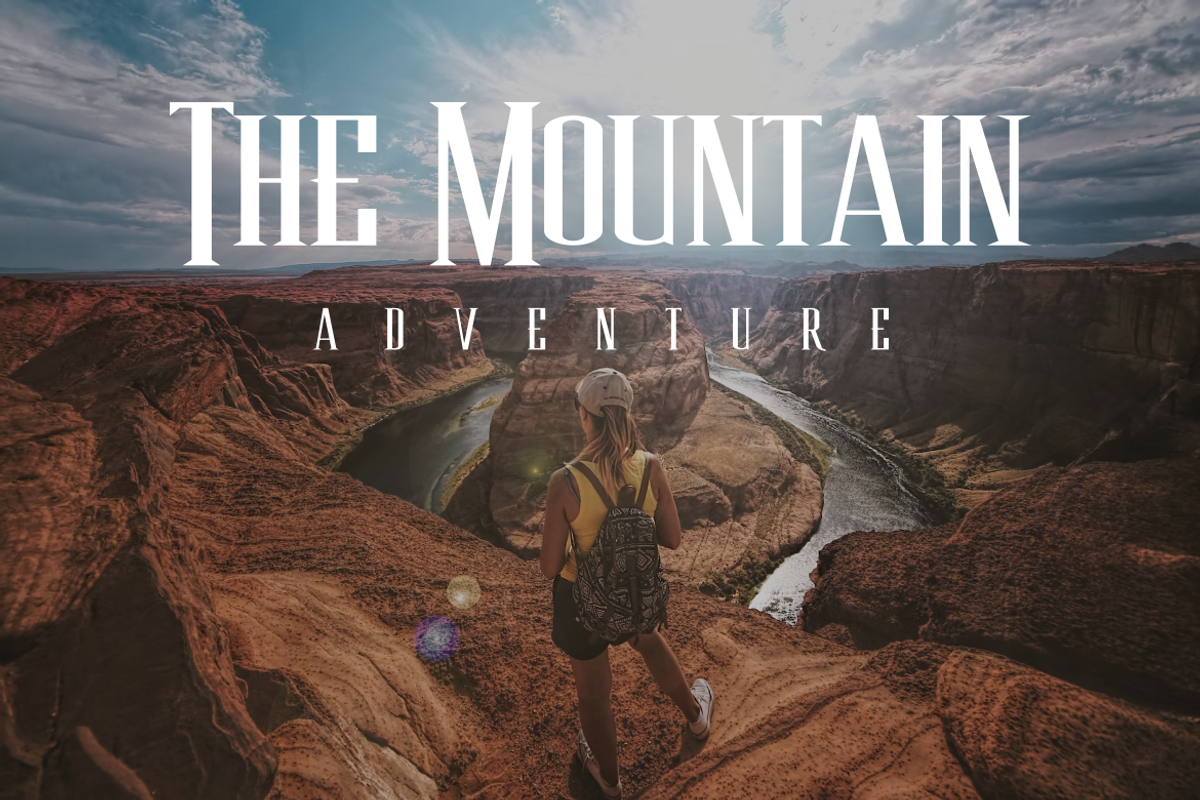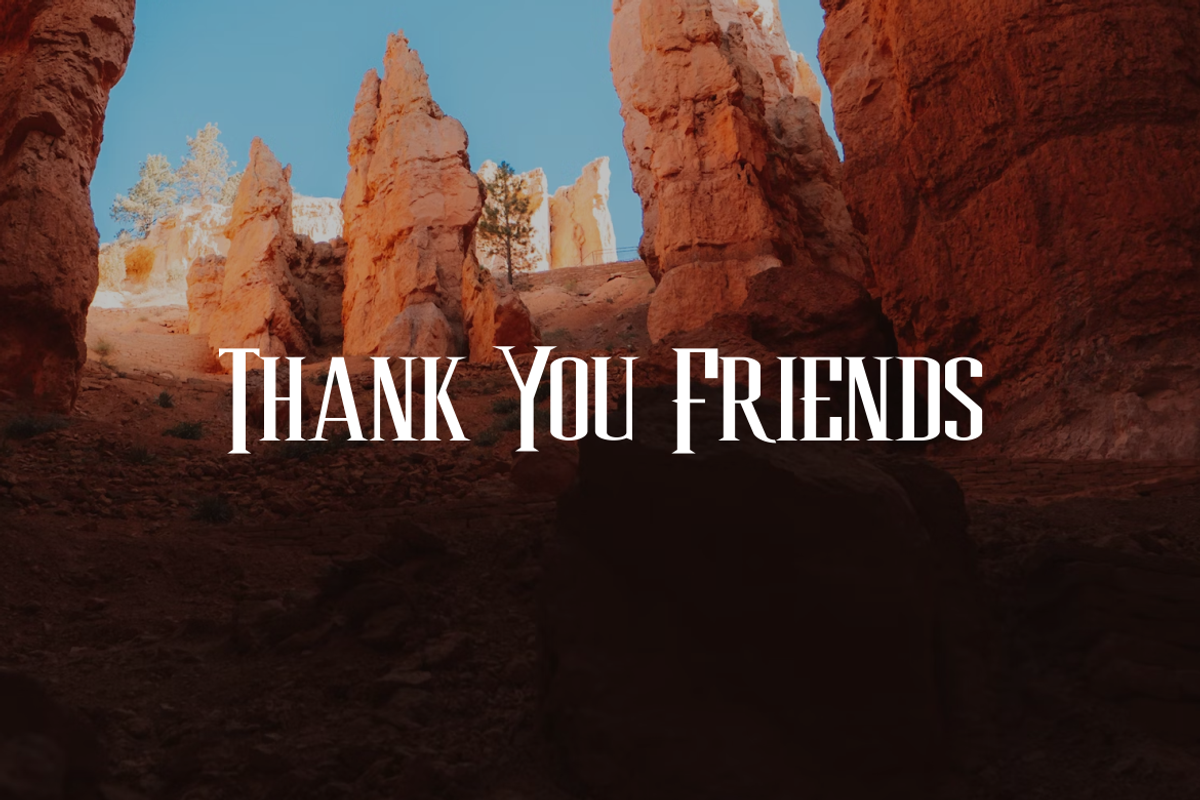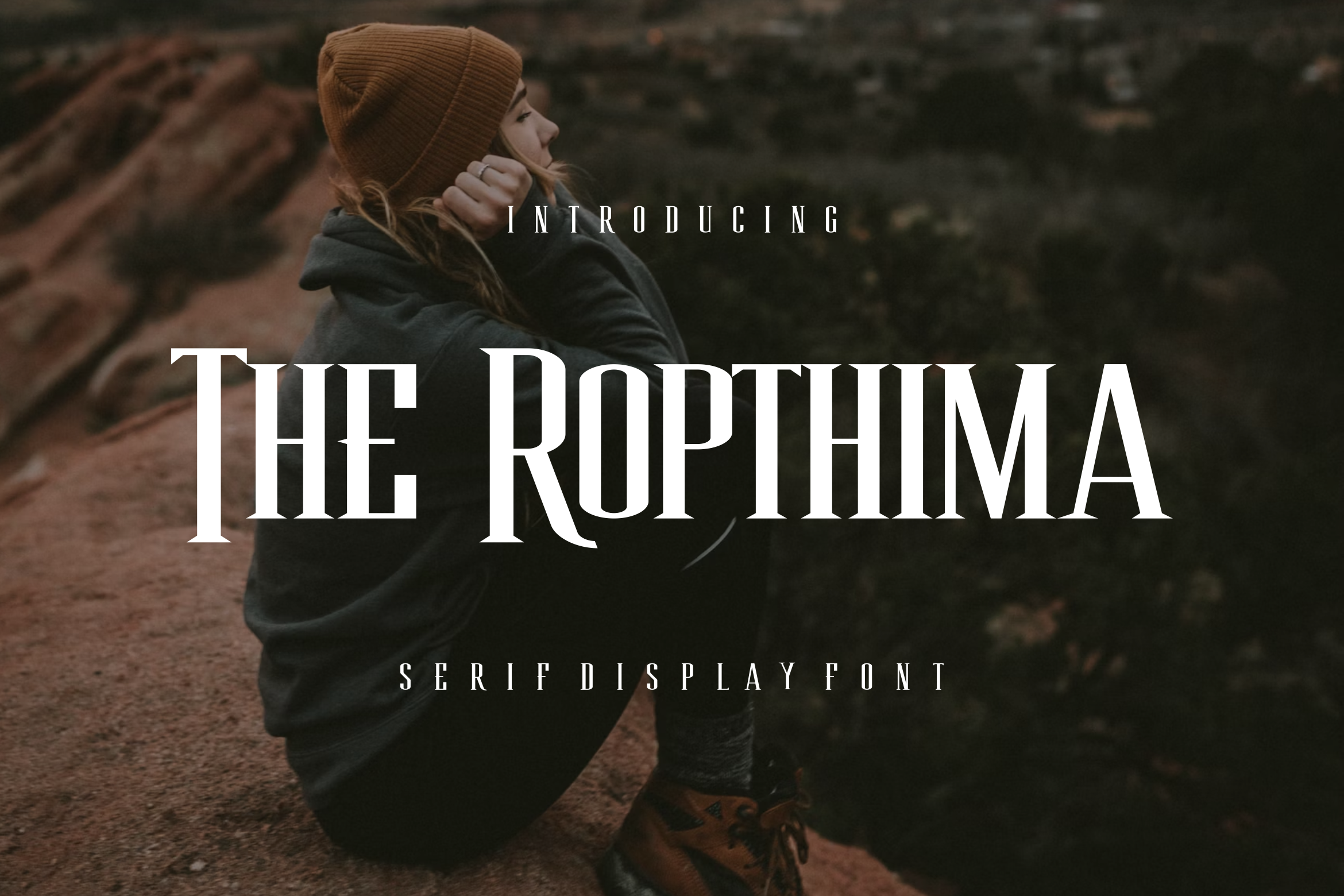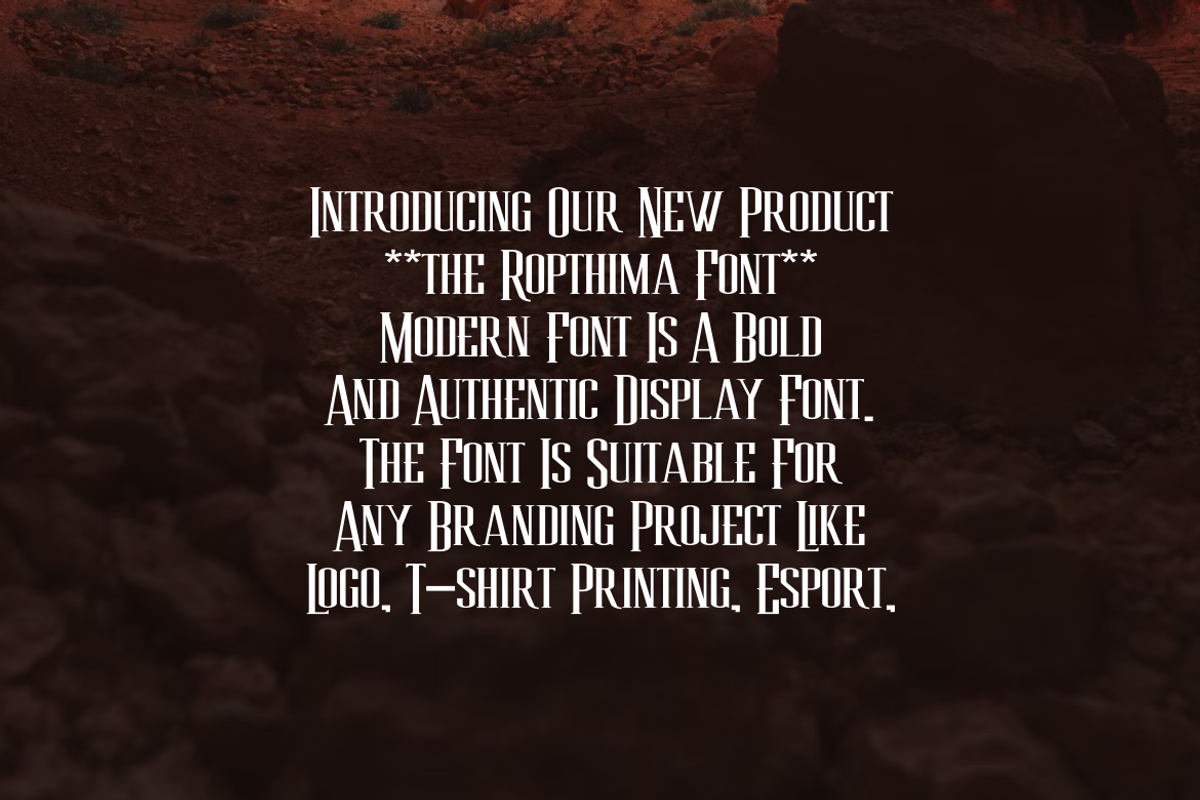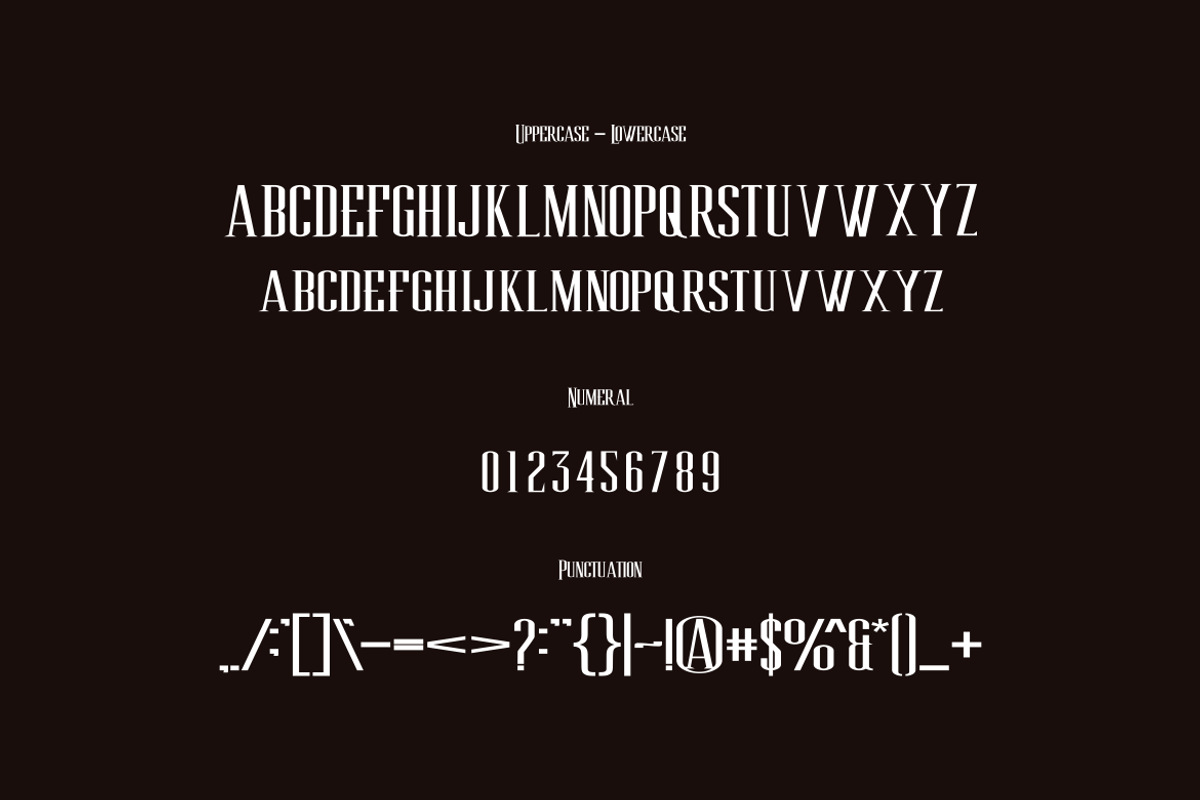
The Ropthima Font
Introducing our new product The Ropthima Font - Modern Font
The Ropthima Font - Modern Font is a bold and authentic display font. The font is suitable for any branding project like logo, esport, and many more. outstanding in a wide range of contexts.